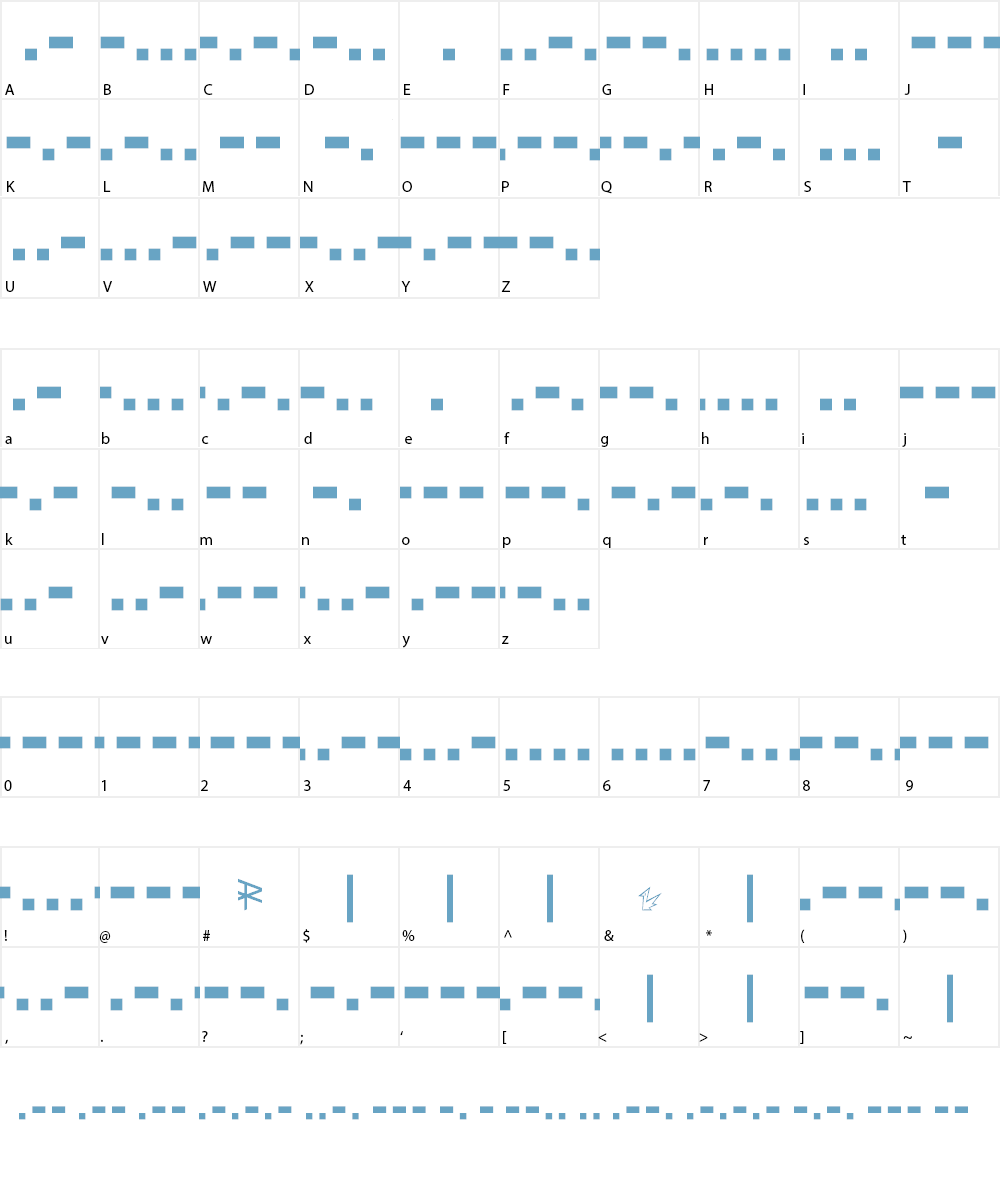
BukanMorse One is a typeface based on International Morse Code, (too). BukanMorse One is BukanMorse typeface with different style.
Upper-case letter without space on the right.
AA .-.- AaB .-.- -...
Lower-case letter with space on the right.
aa .- .- aAB .- .--...